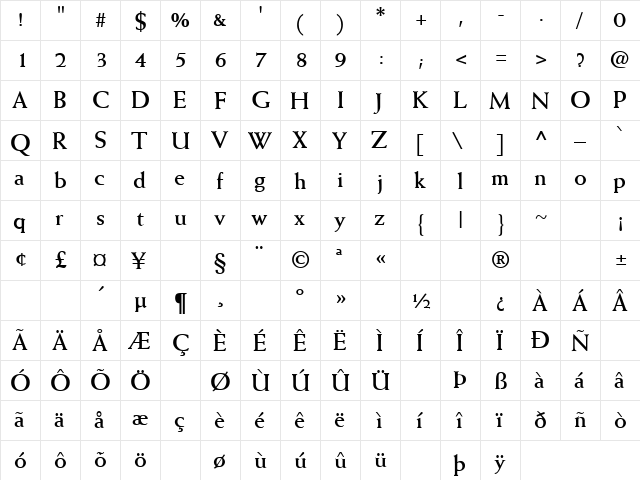
Woman Of The World 3 Regular
Design Context for Woman Of The World 3 Typeface
Woman Of The World 3 takes a measured approach to typography — its balanced proportions and neutral character make it a reliable workhorse for both digital and print work.